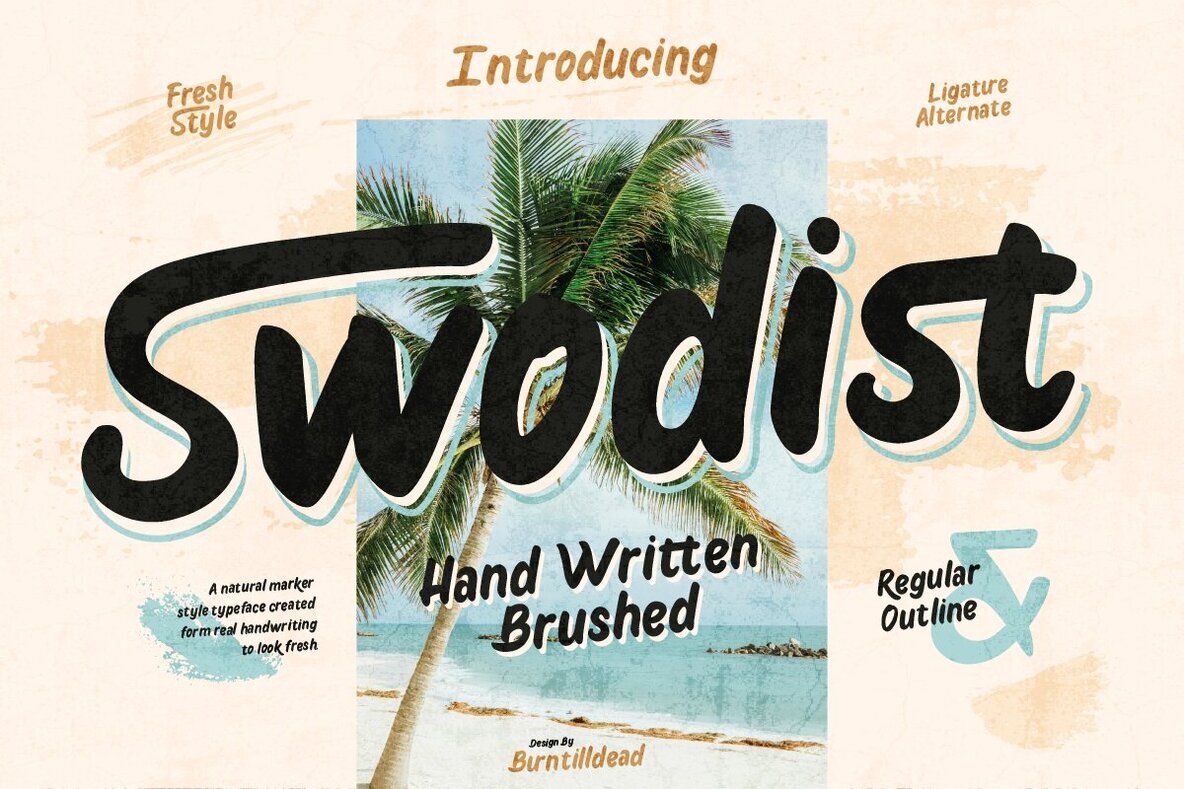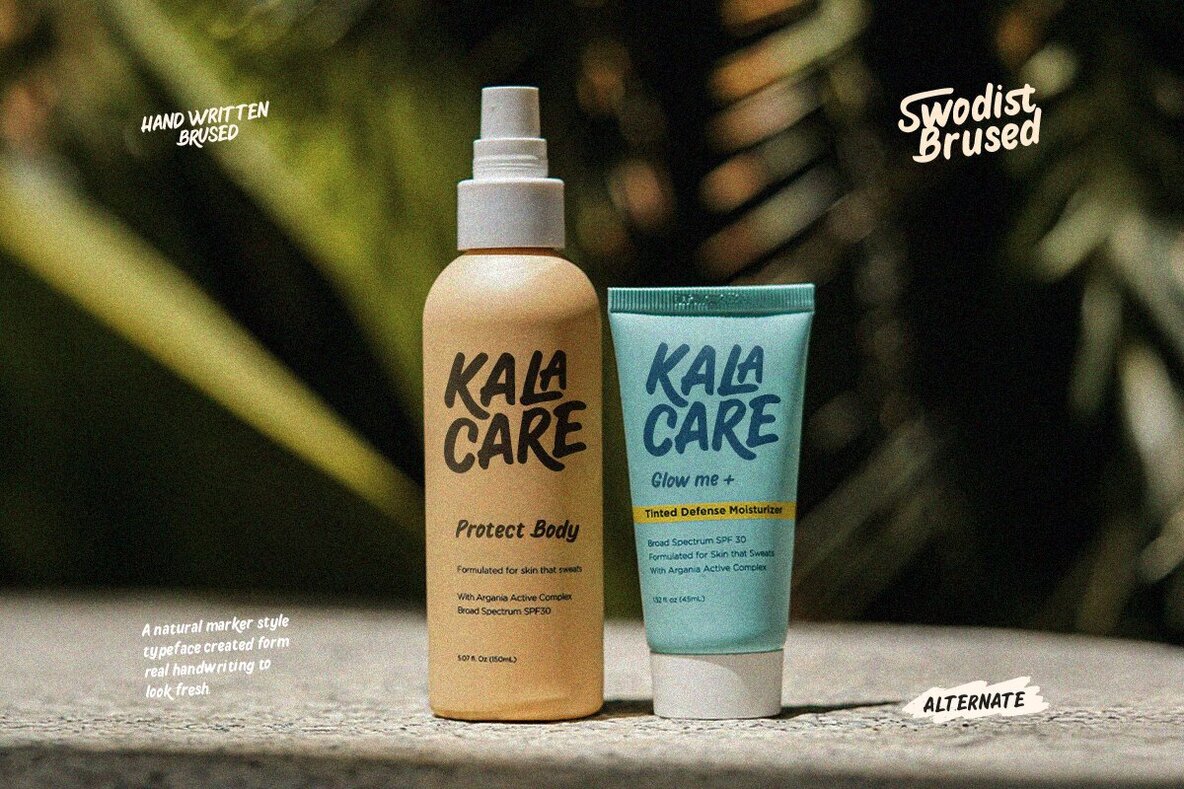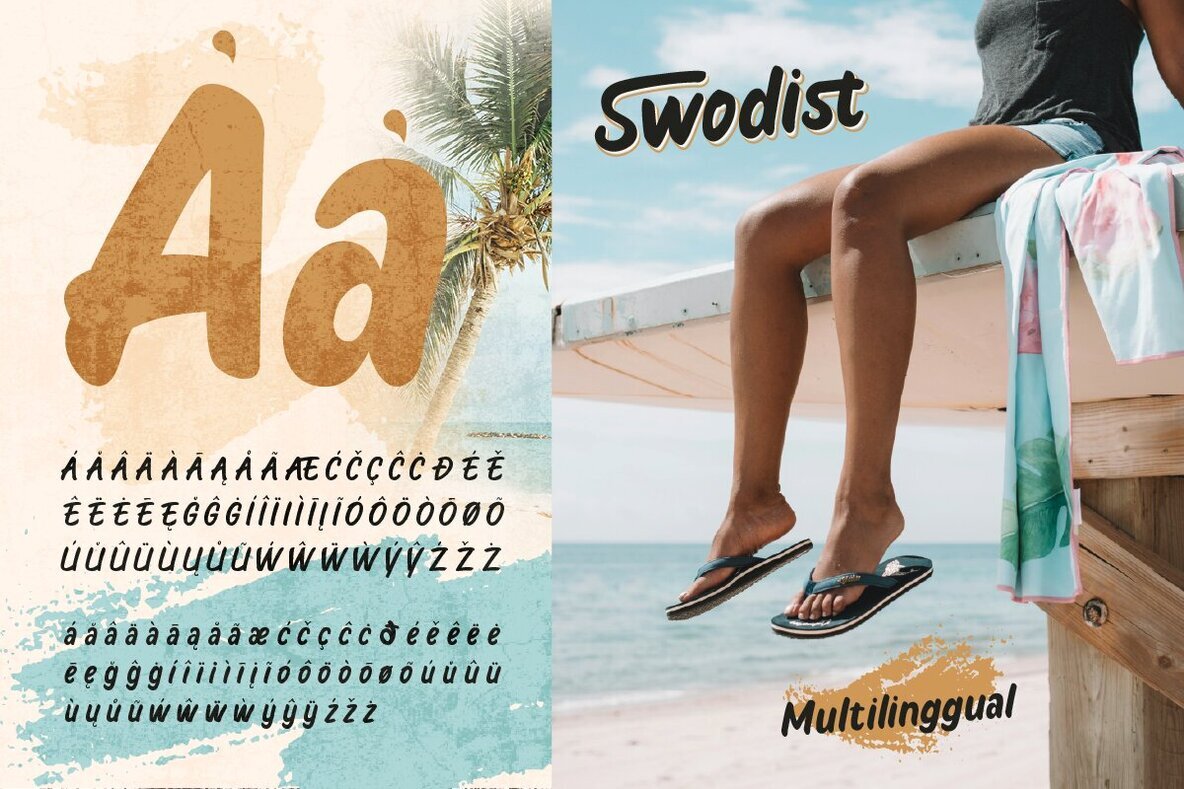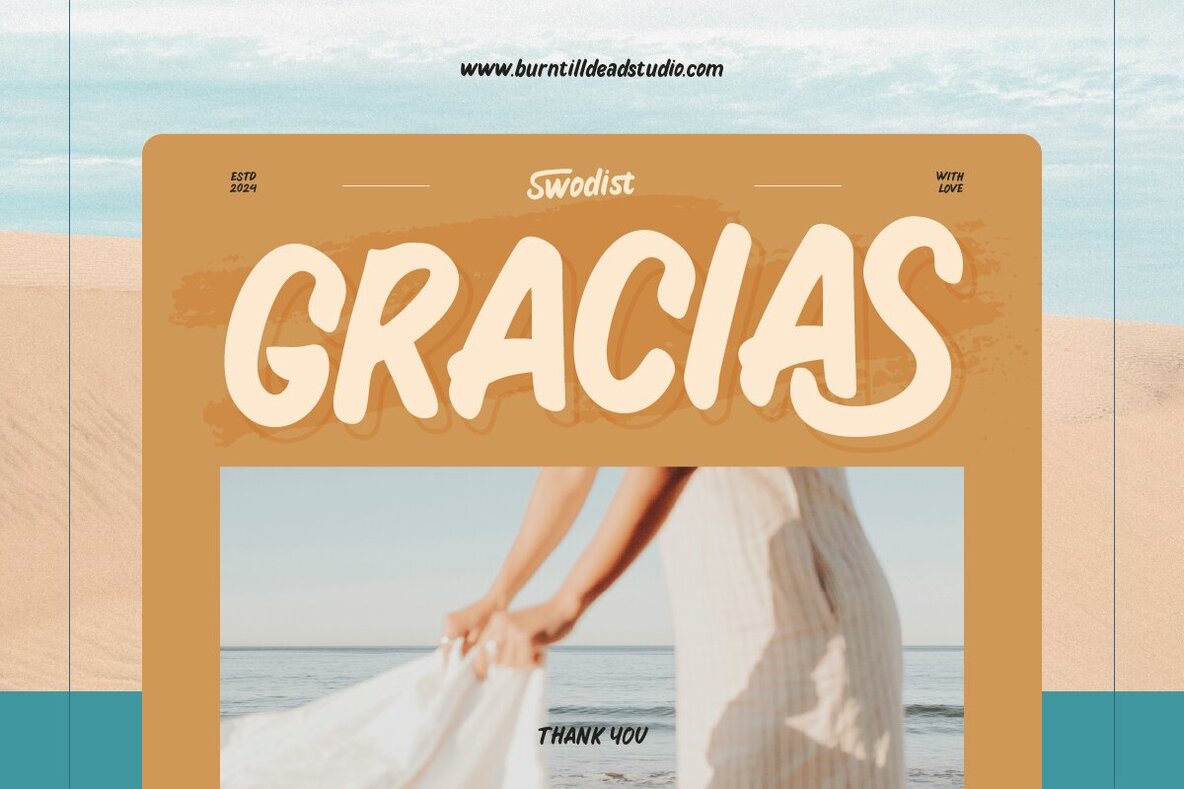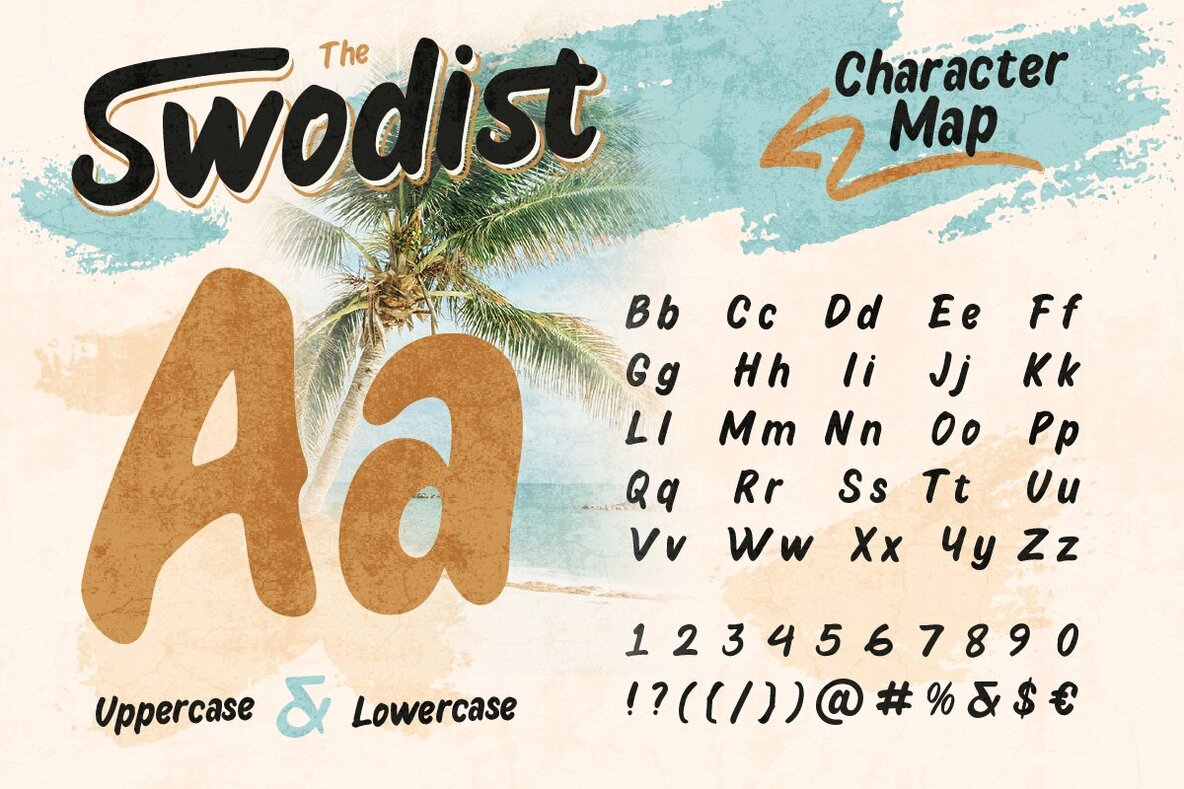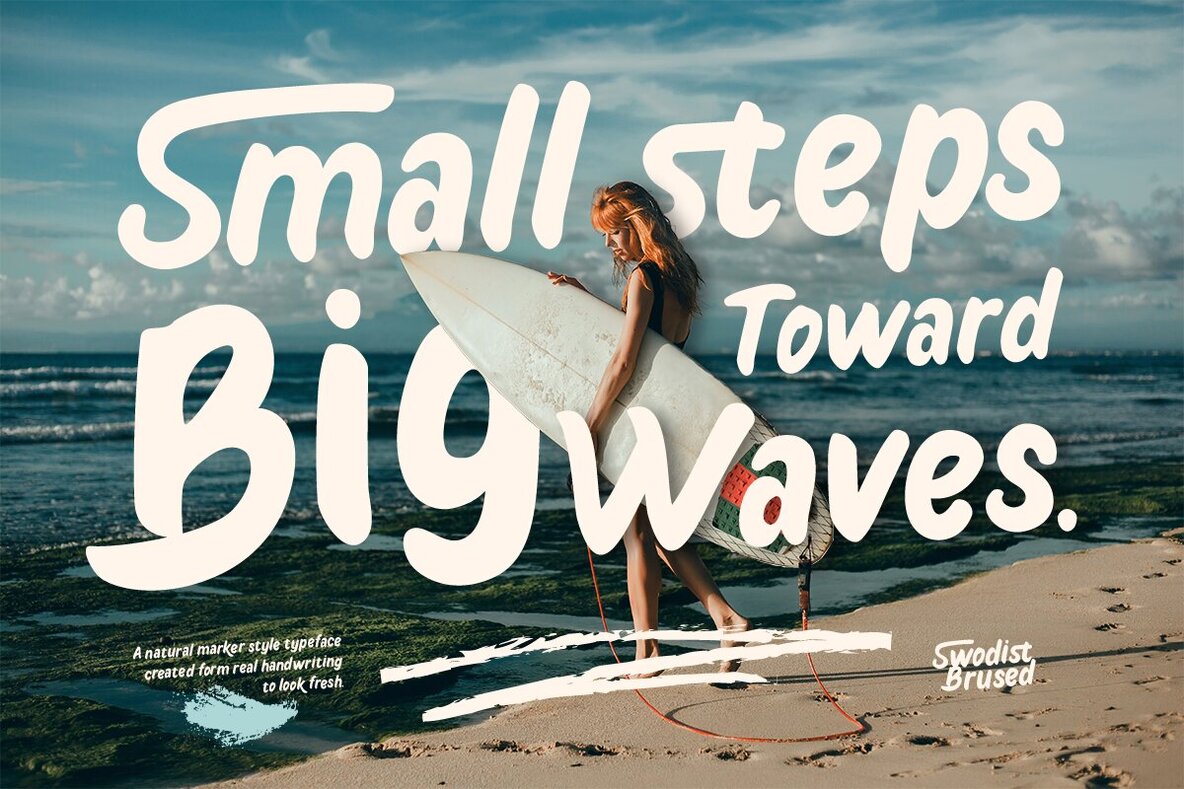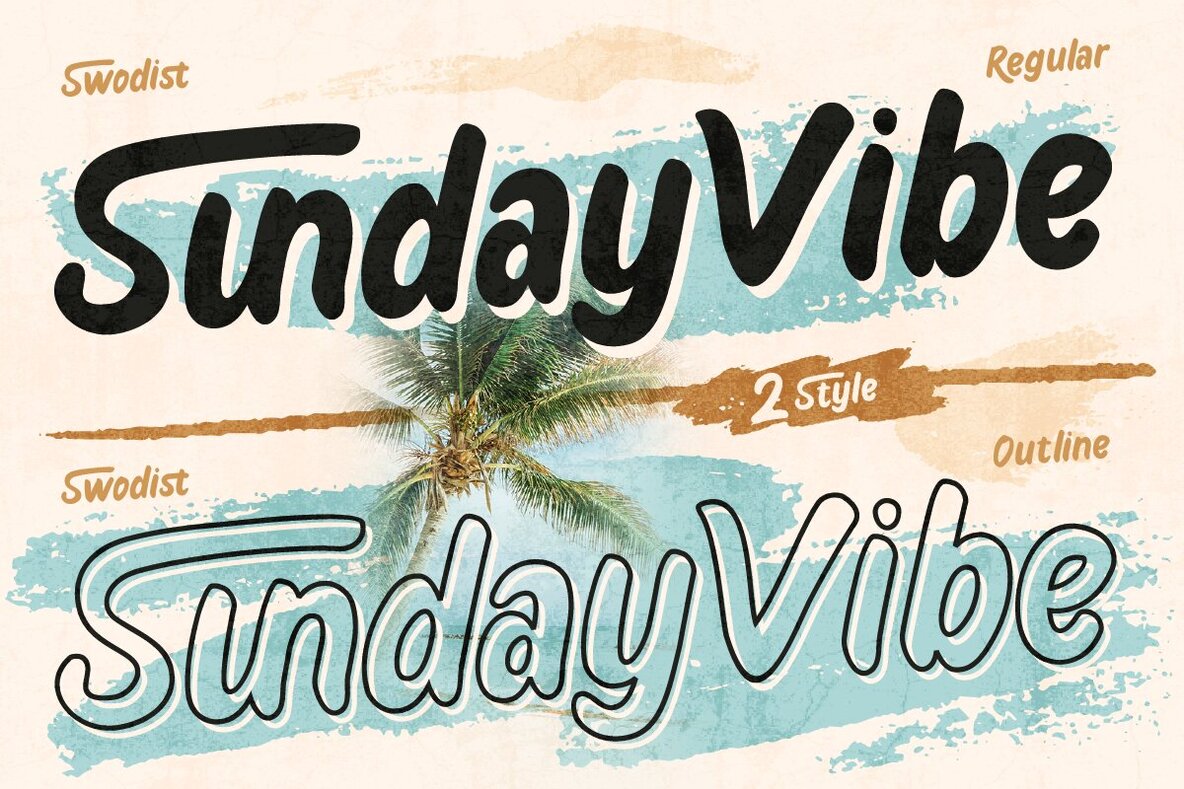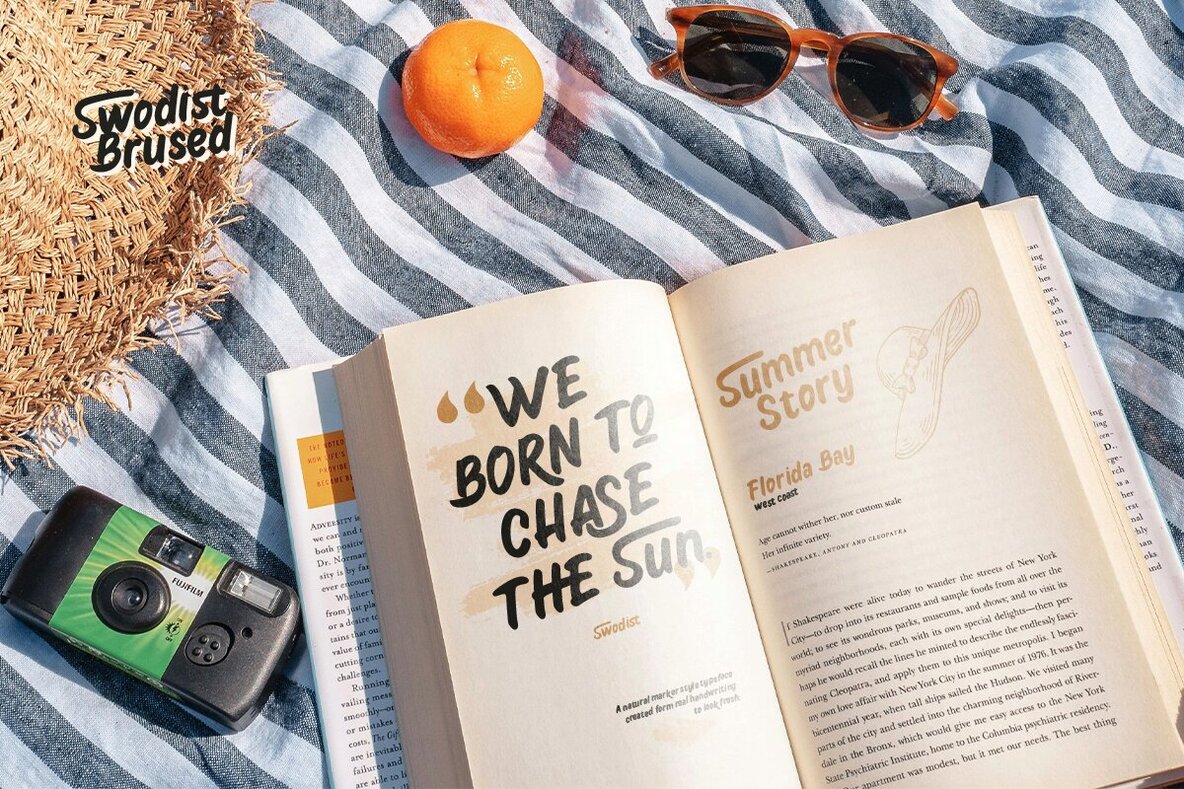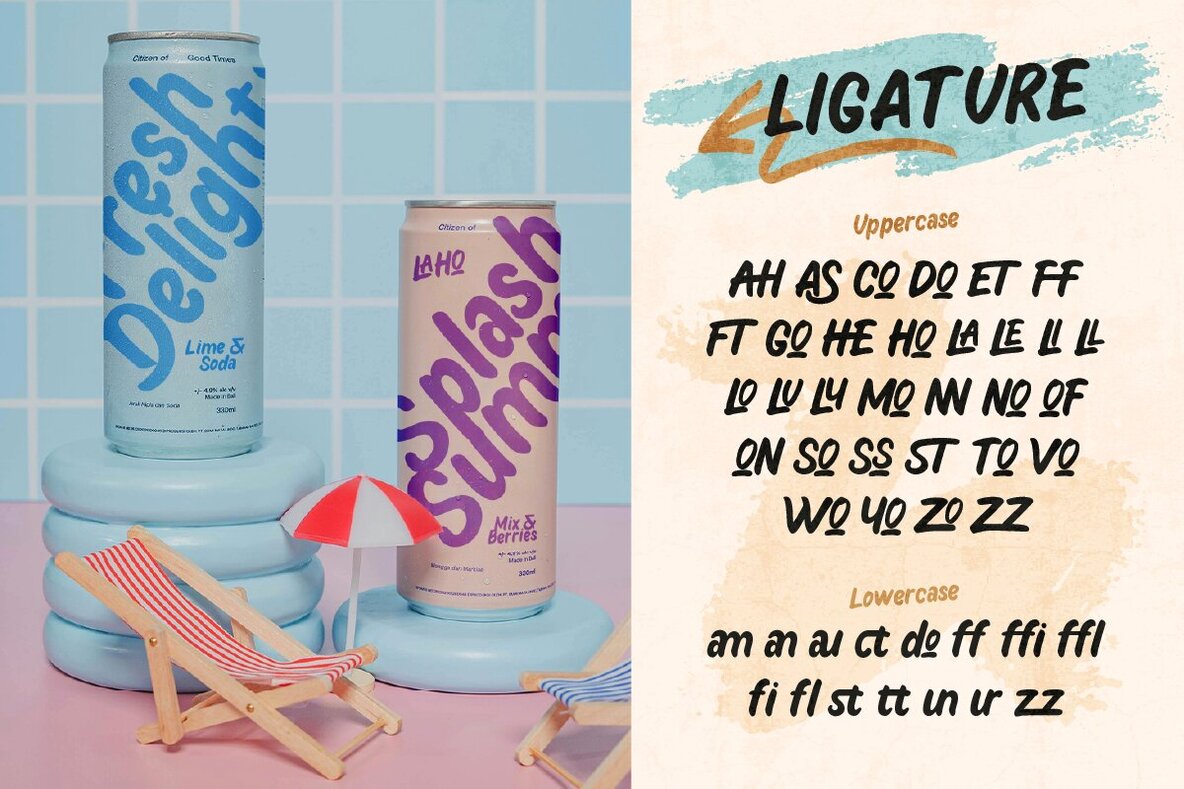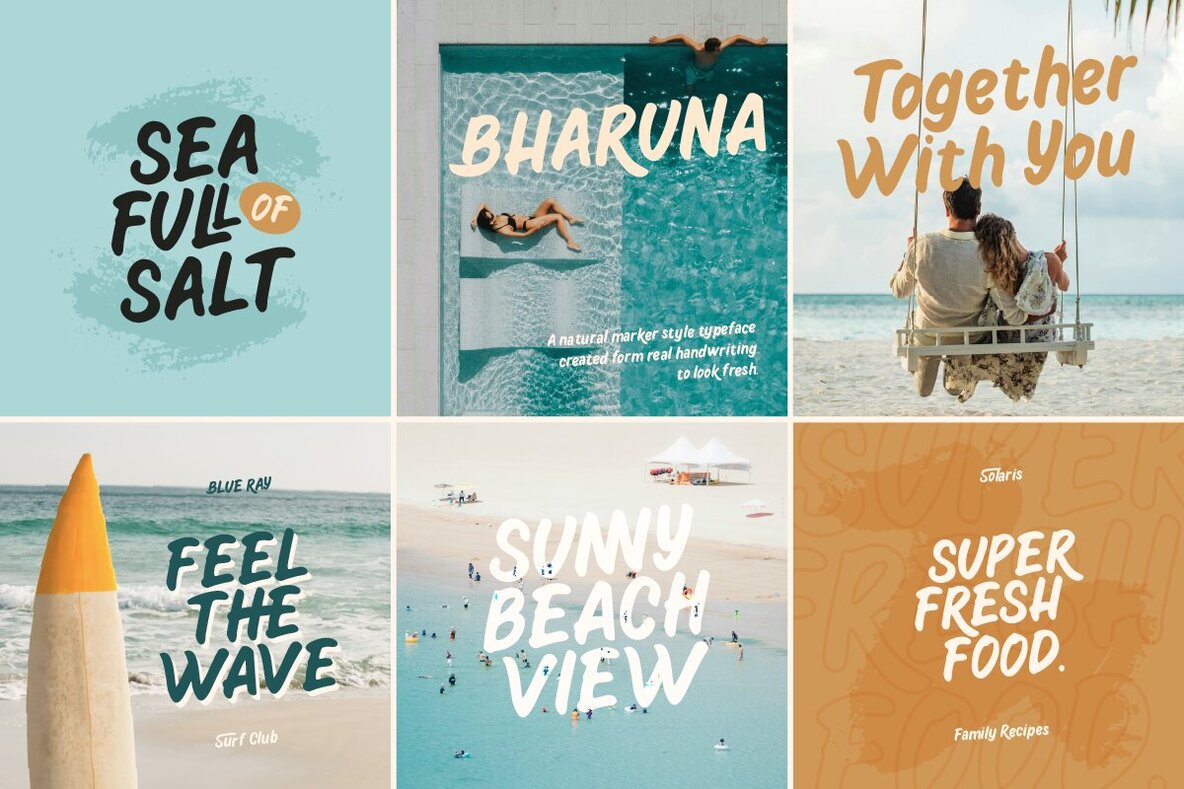
Swodist Font
Swodist Regular
Swodist Outline
Swodist delights with its handwritten brush style, capturing a retro-friendly vibe that is both fresh and expressive. Embracing bold shapes and soft brush textures, this font infuses your designs with a natural allure. Available in two versatile styles, Regular and Outline, Swodist includes alternates and ligatures for seamless, creative styling. It is ideal for diverse applications, from branding and posters to headlines, logos, packaging, magazines, and book covers. Features:Swodist: Artistic Brush Font with Retro Charm